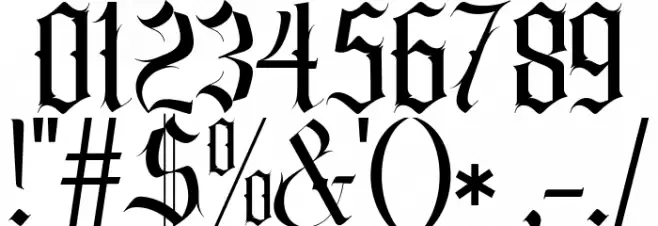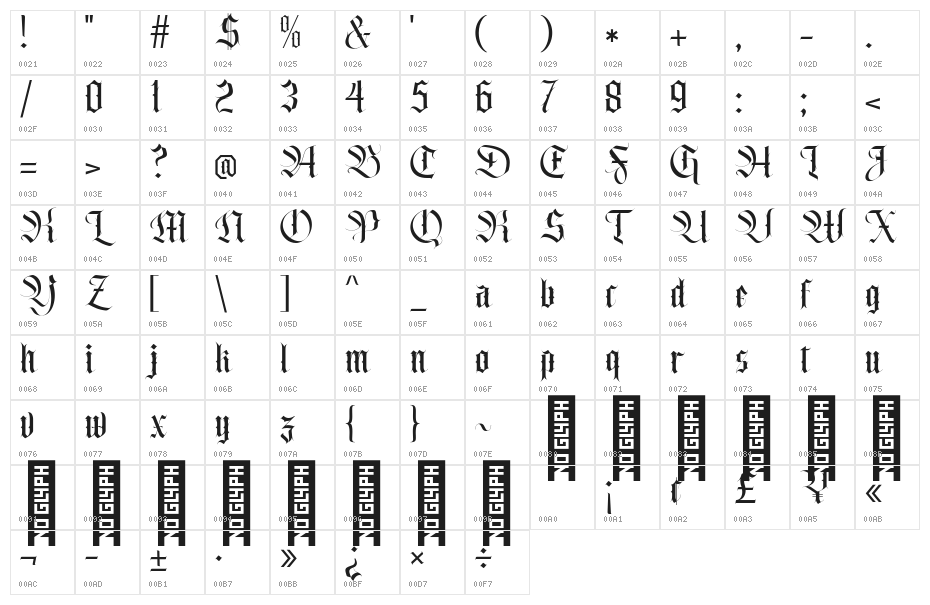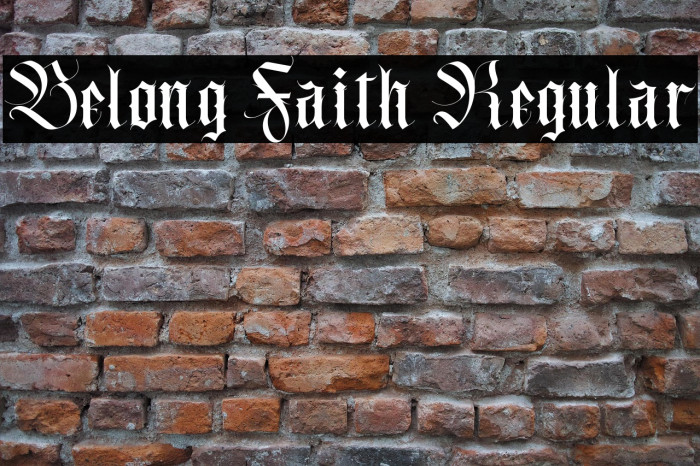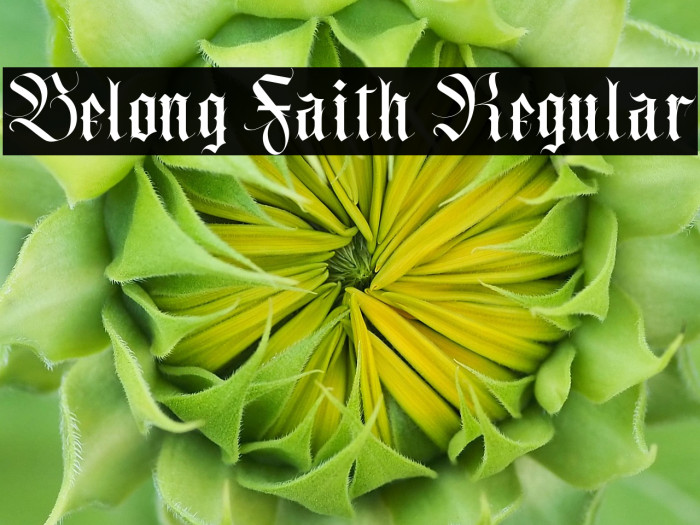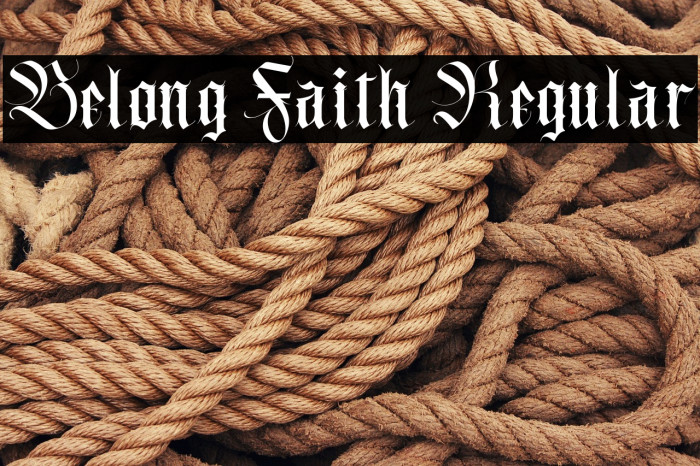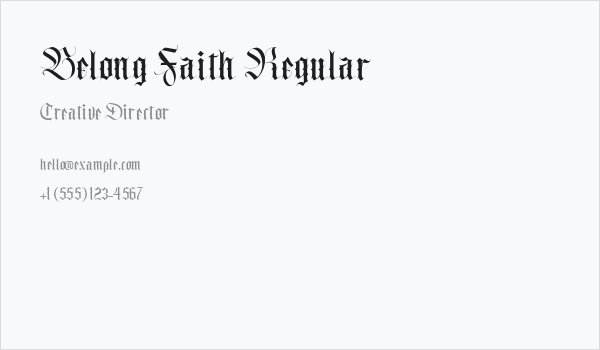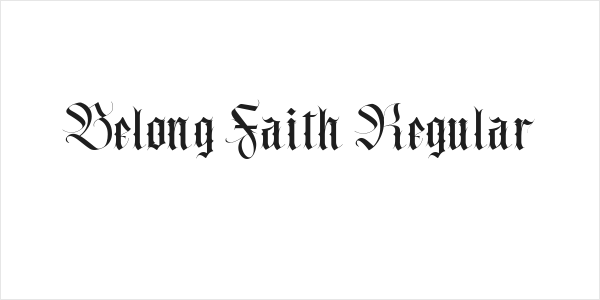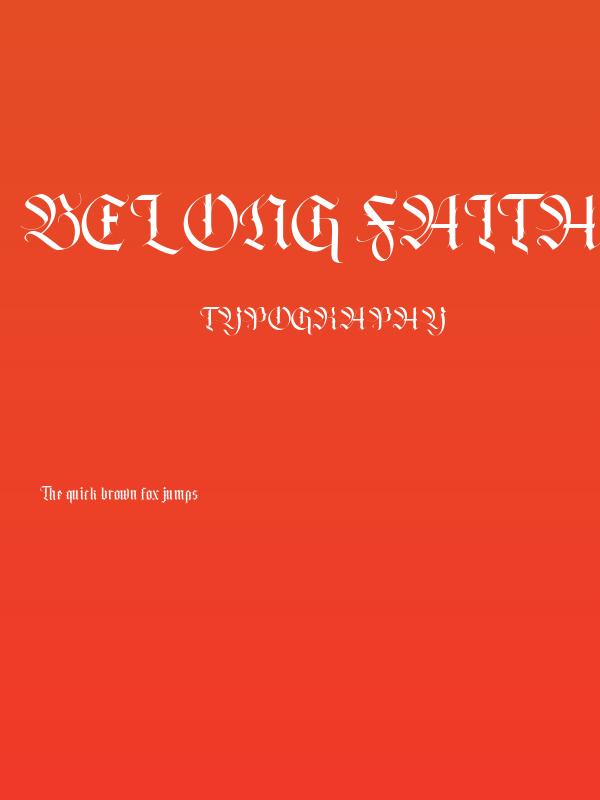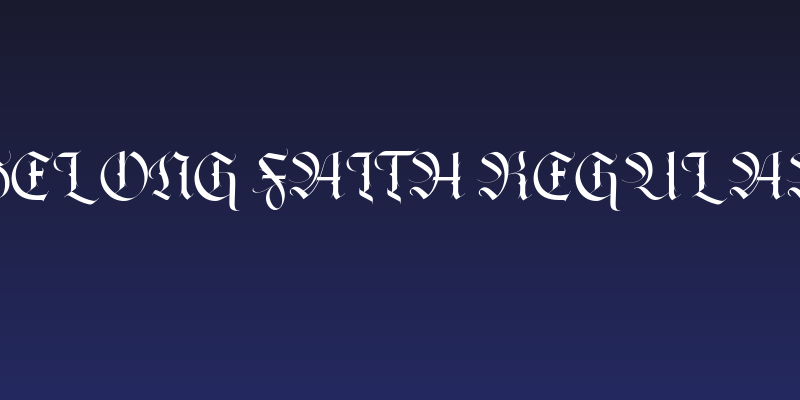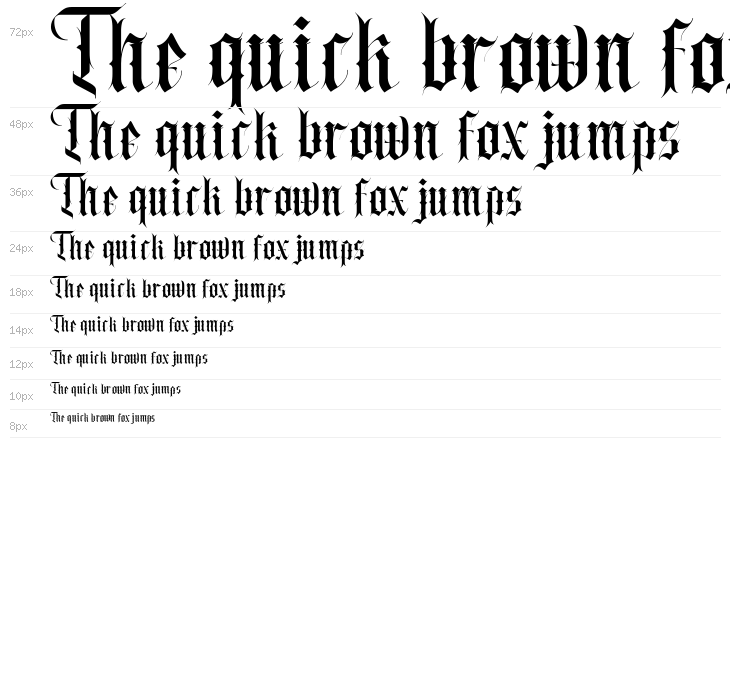
Belong Faith Regular Font
Belong Faith Regular Description
This font exhibits a classic blackletter style, characterized by its intricate and ornate design. The letters are sharp and angular, with a distinct medieval aesthetic that evokes a sense of tradition and history. The uppercase letters are particularly elaborate, featuring decorative flourishes and a bold presence. The lowercase letters maintain the same level of detail, ensuring consistency throughout the typeface. Numbers and special characters are equally stylized, fitting seamlessly into the overall design. The font's dramatic appearance makes it suitable for projects that require a touch of elegance and sophistication.
| Use Case | Headlines, Logos, Decorative purposes |
| Proposed Projects | Ideal for historical documents, wedding invitations, certificates, and branding that requires a traditional touch. |